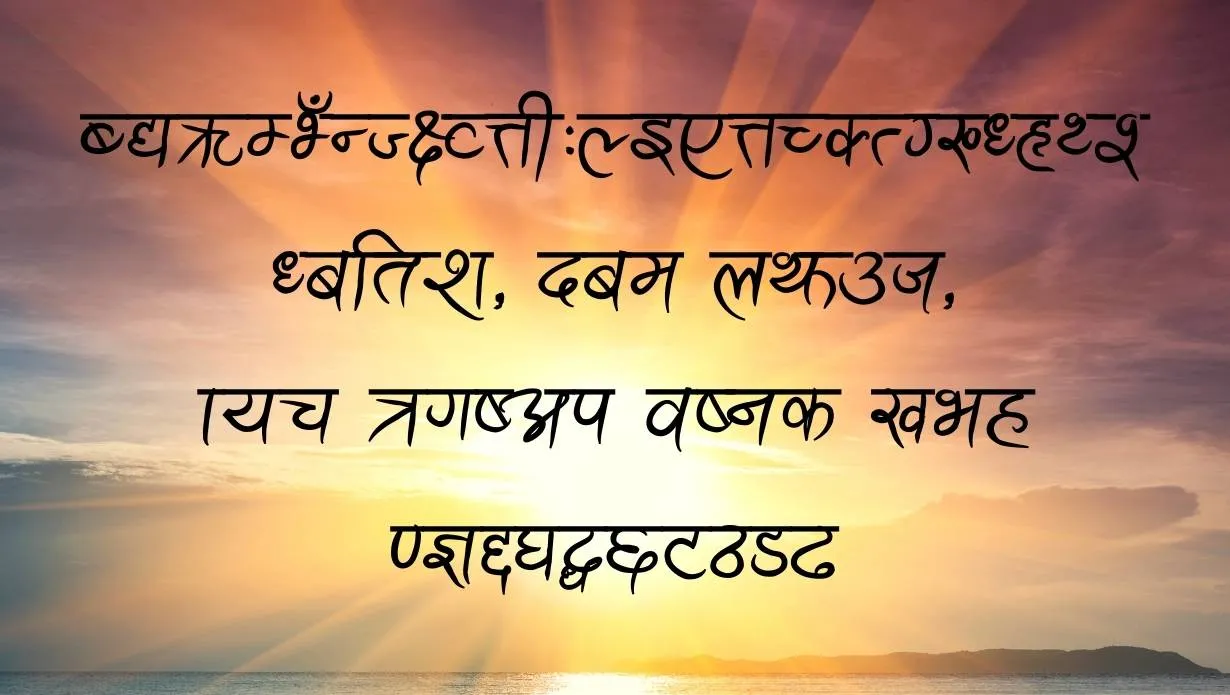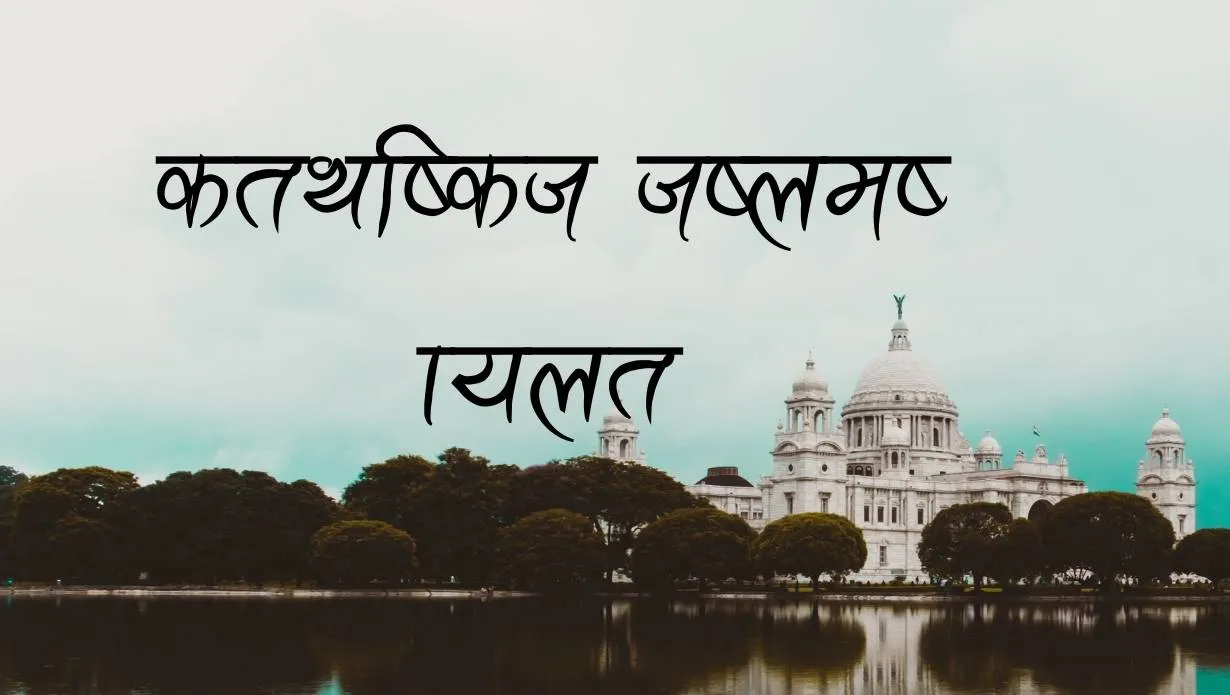
About Stylish Hindi Font
"Stylish Hindi Font" is a broad category referring to contemporary, decorative Devanagari script typefaces that break from traditional printing styles. These fonts incorporate artistic elements like swashes, shadows, 3D effects, floral motifs, or calligraphic flows to create visually striking letterforms. They are immensely popular for creating engaging content for social media, wedding invitations, festival posters (Diwali, Holi), YouTube thumbnails, and modern branding targeting a young, urban Indian audience. They prioritize visual impact and cultural resonance over the strict readability required for long body text.